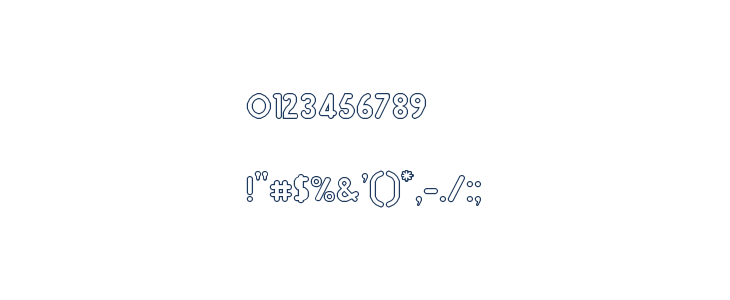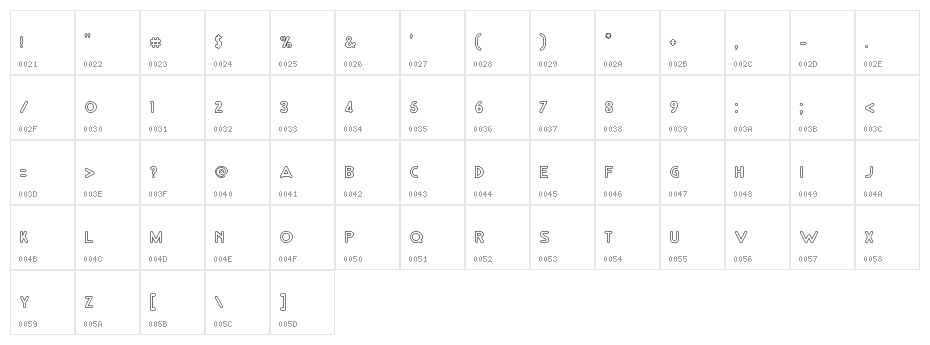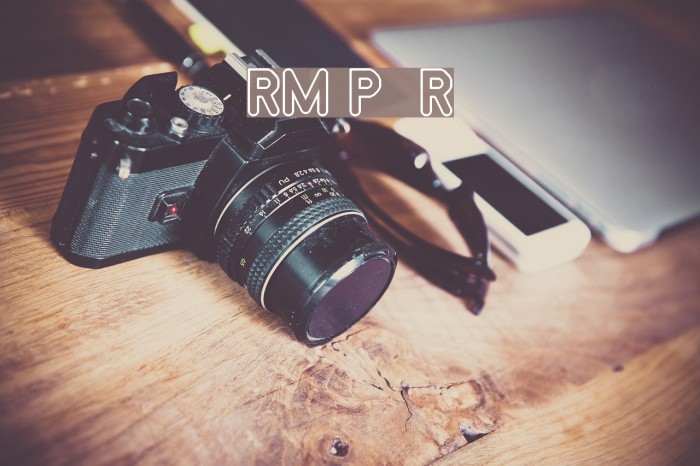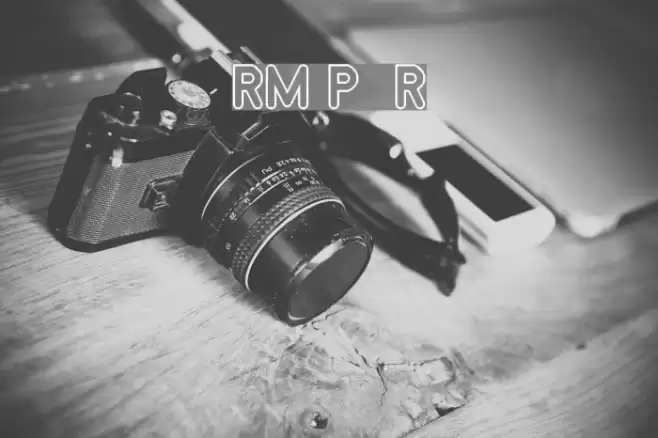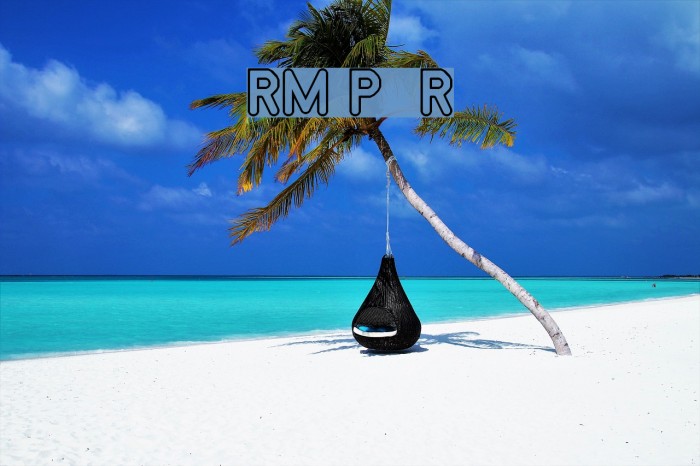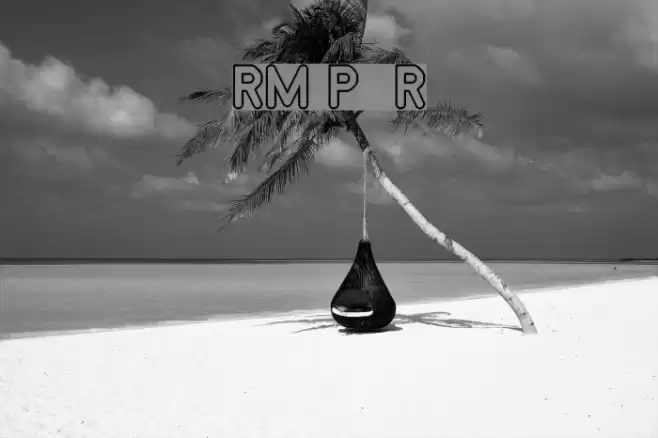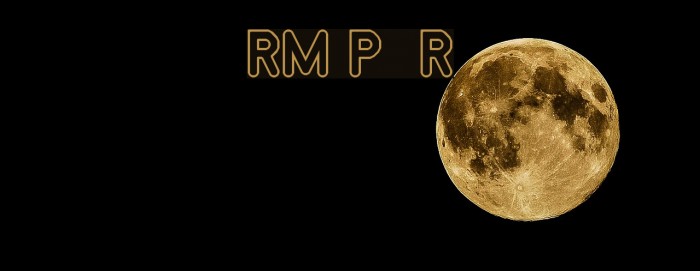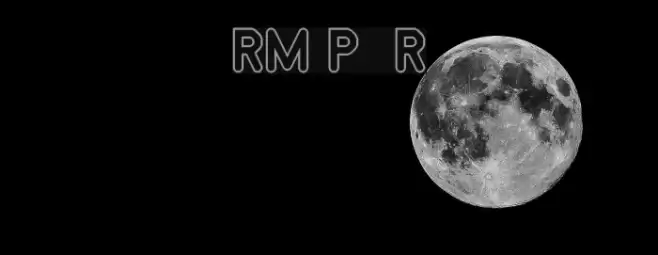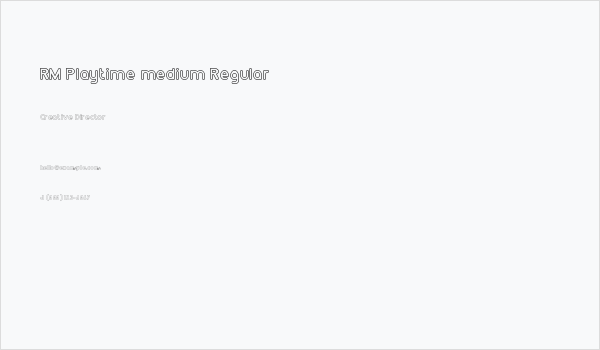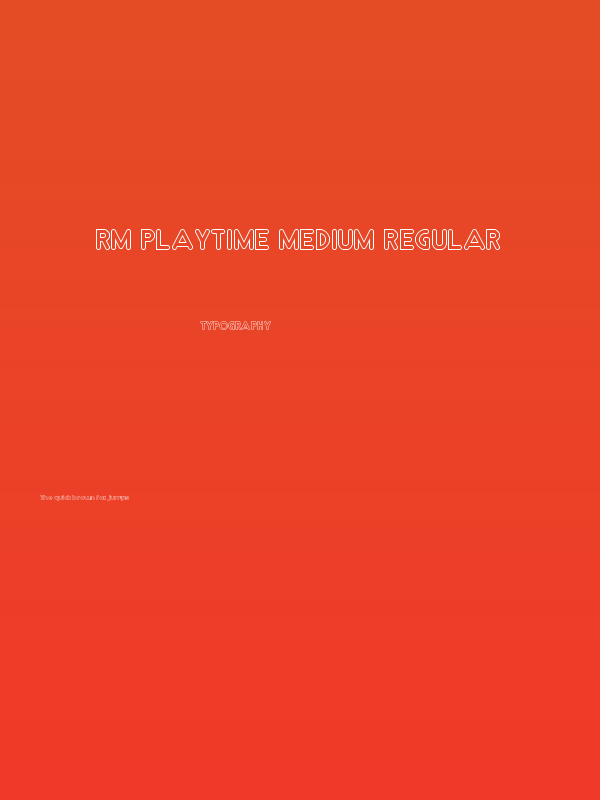
RM Playtime medium Regular Font
RM Playtime medium Regular Description
This font features a playful and rounded style, characterized by its hollow, outlined letters. The uppercase and lowercase characters maintain a consistent width, creating a harmonious and balanced appearance. The numbers and special characters are designed to match the whimsical and friendly aesthetic, making it suitable for informal and creative projects. The font's open structure and clear legibility make it ideal for eye-catching designs where a fun and approachable tone is desired.
Overall StylePlayful, Modern
Proposed ProjectsIdeal for children's books, playful branding, party invitations, and creative posters.